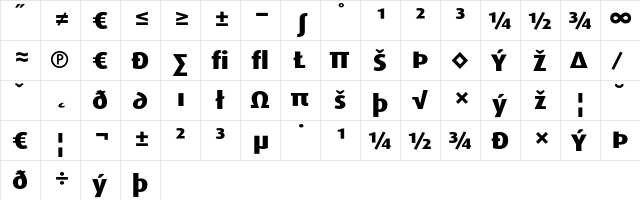
DaxWide ExtraBoldExpert
Design Context for DaxWide Typeface
DaxWide takes a measured approach to typography — its balanced proportions and neutral character make it a reliable workhorse for both digital and print work. The heavy weight commands attention and anchors typographic hierarchies.
Pro Tip: Pair DaxWide with a font of contrasting weight or personality to build a more expressive typographic hierarchy.